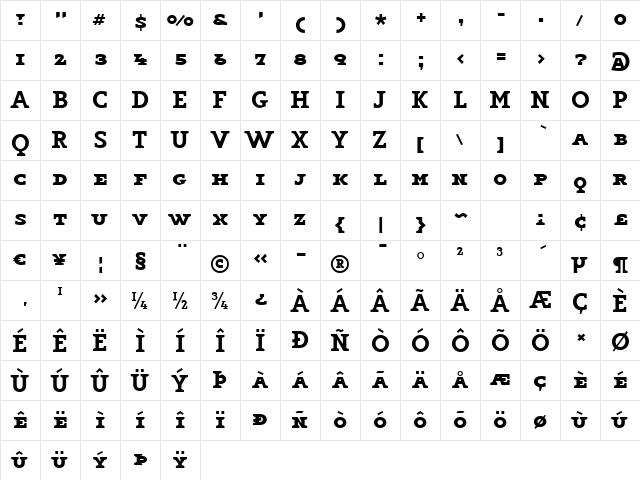
KeyMediumCapitals Regular
Design Context for KeyMediumCapitals Typeface
KeyMediumCapitals is a composed and adaptable typeface that performs quietly and consistently across a wide range of design contexts.